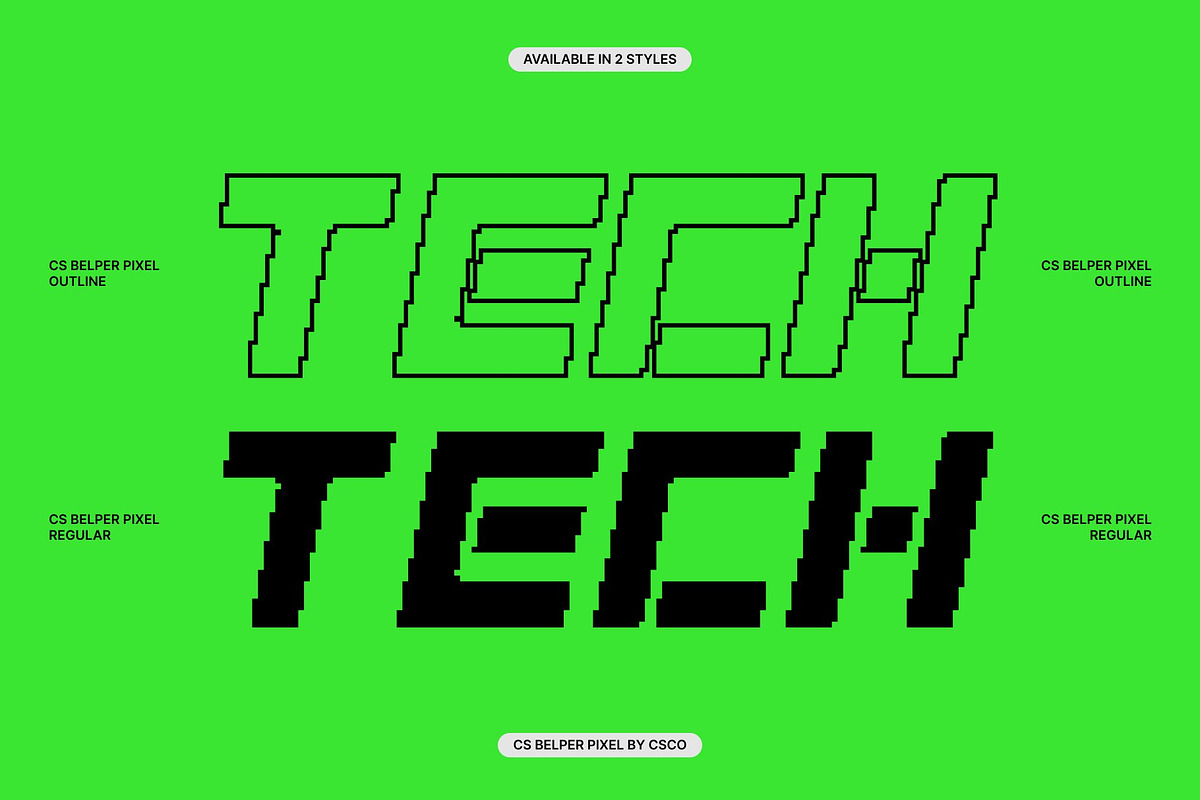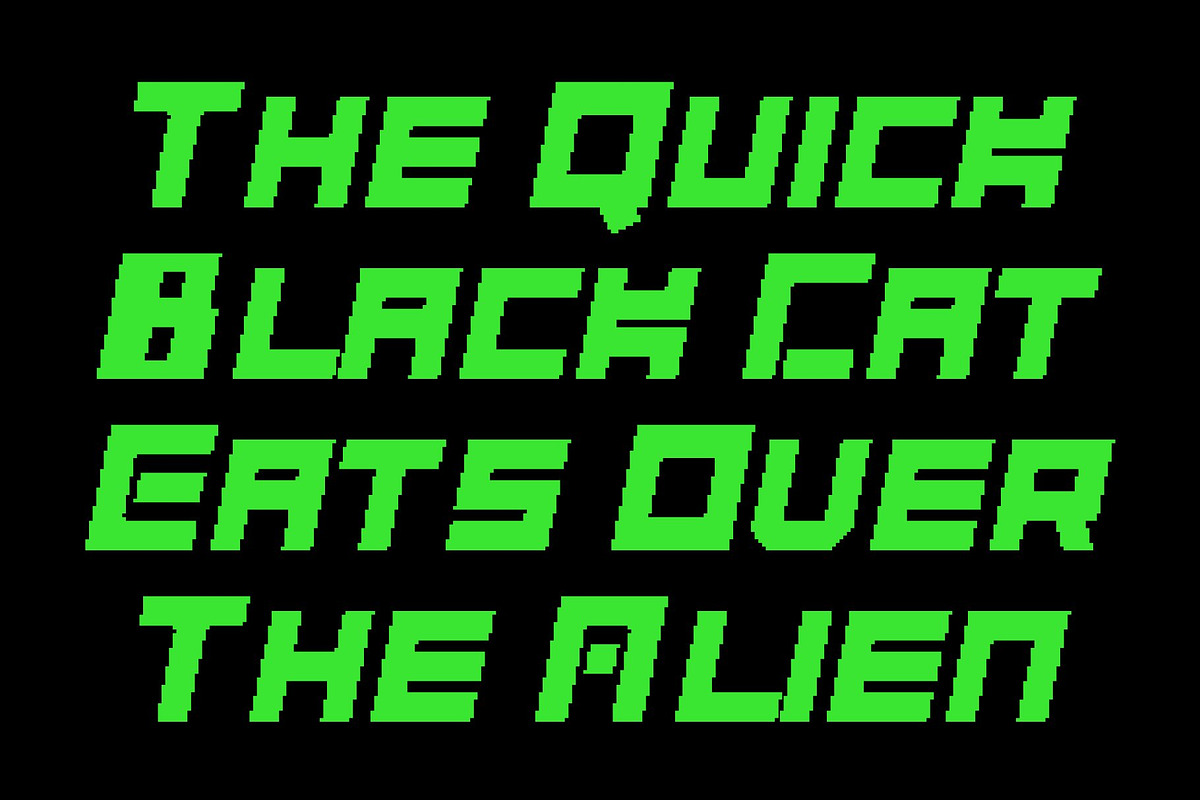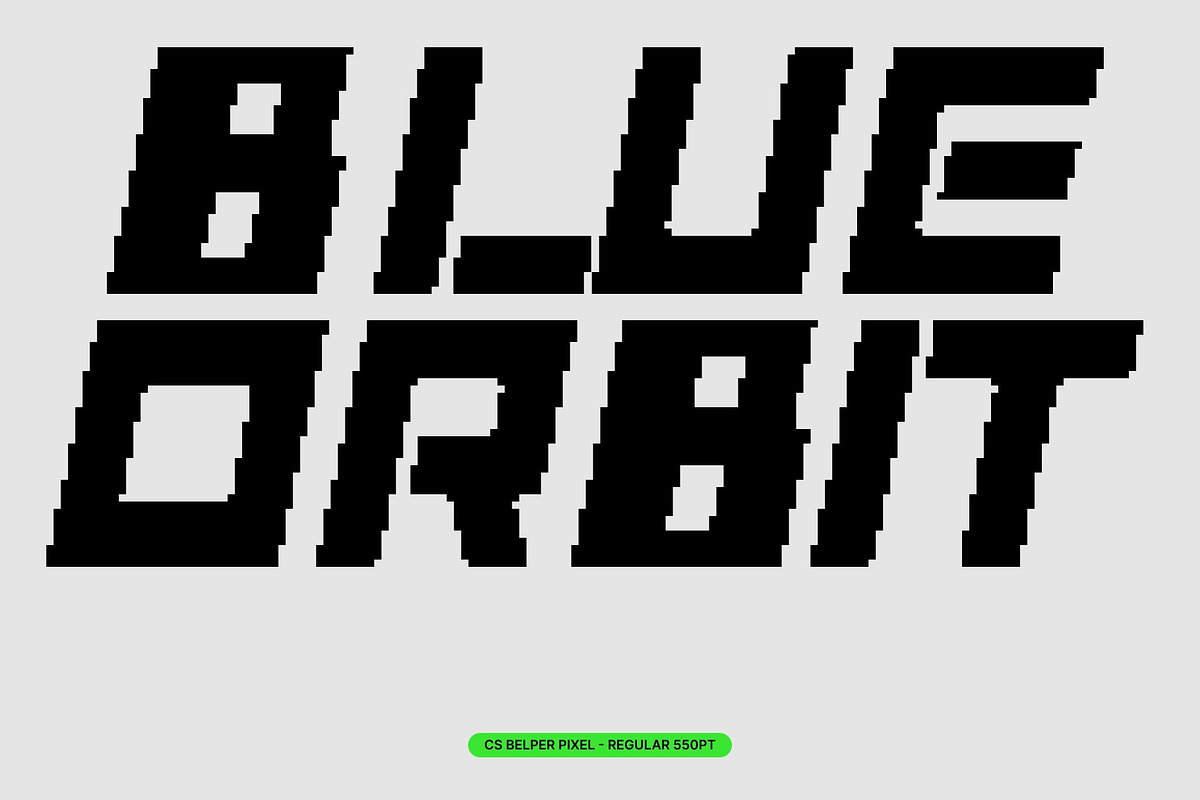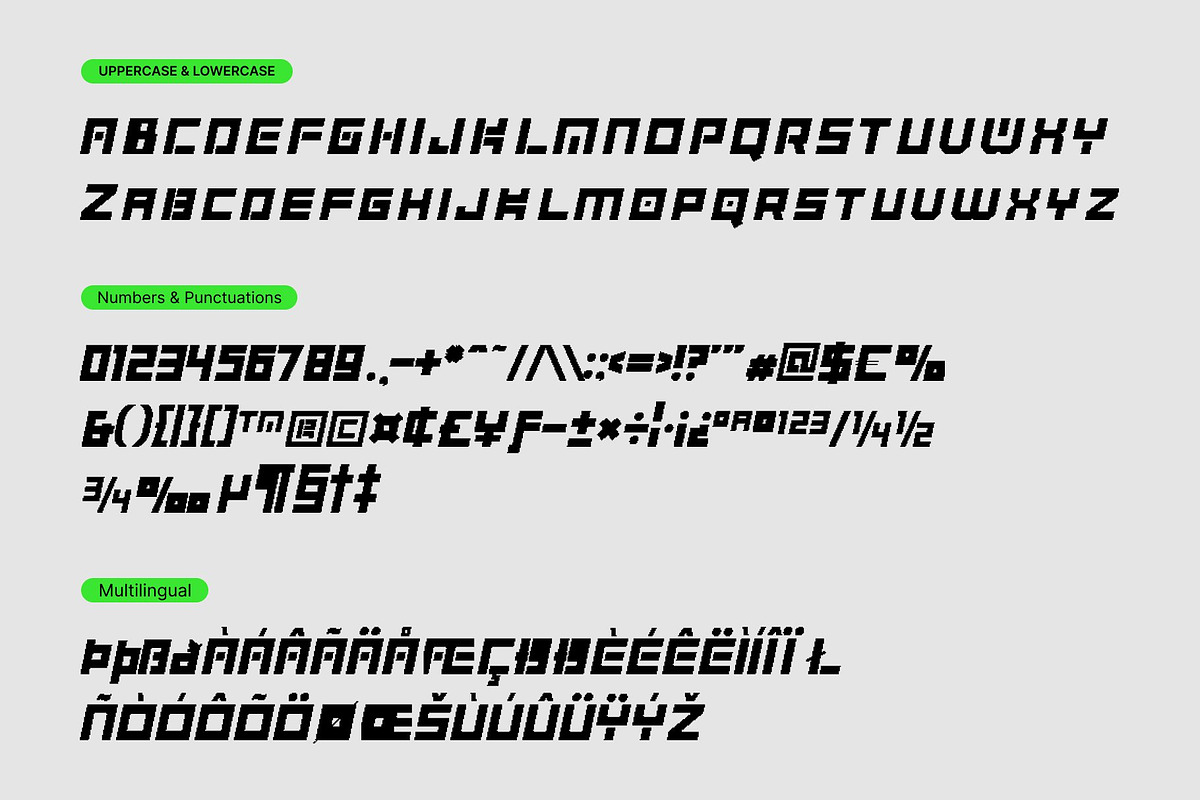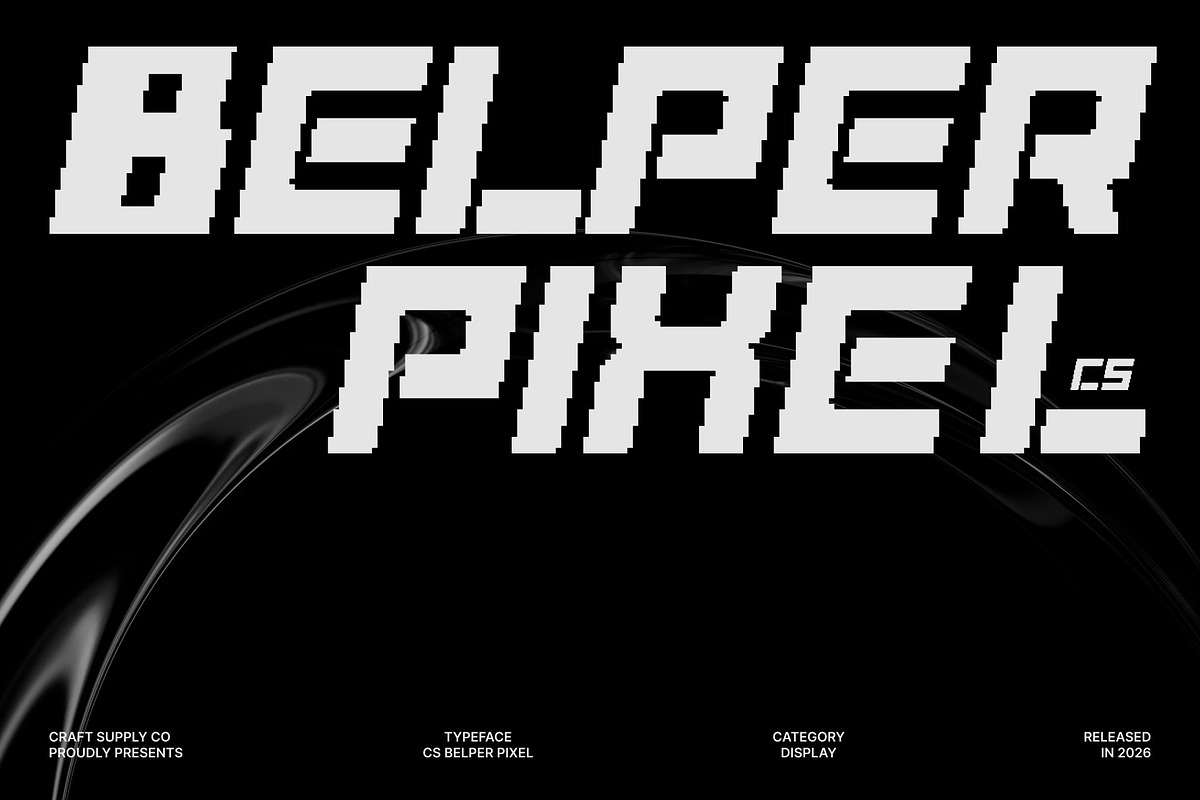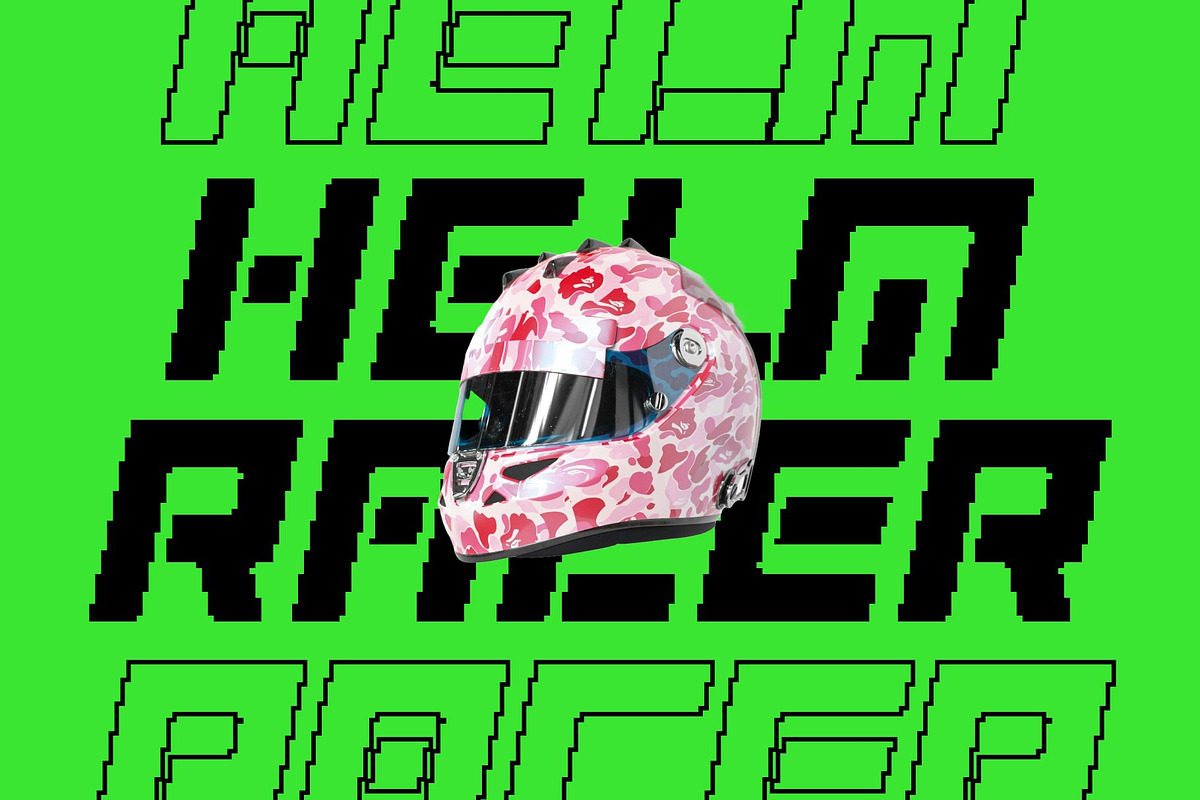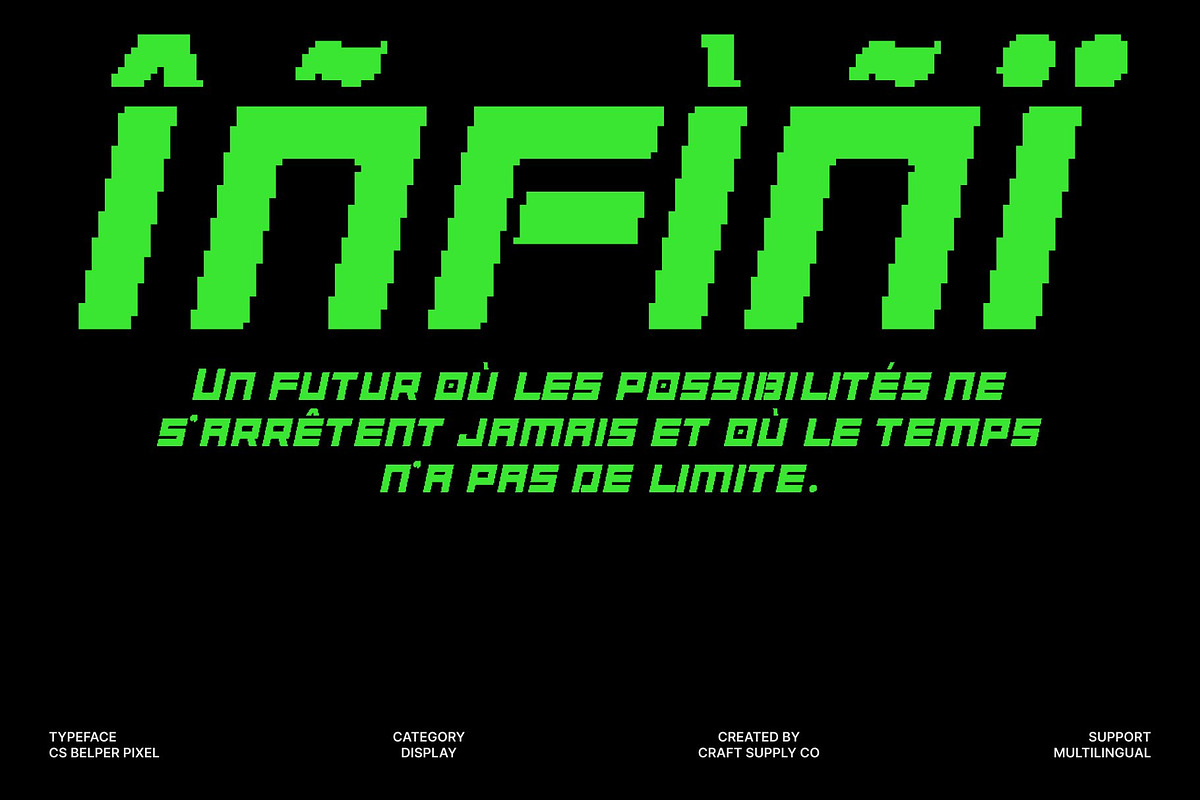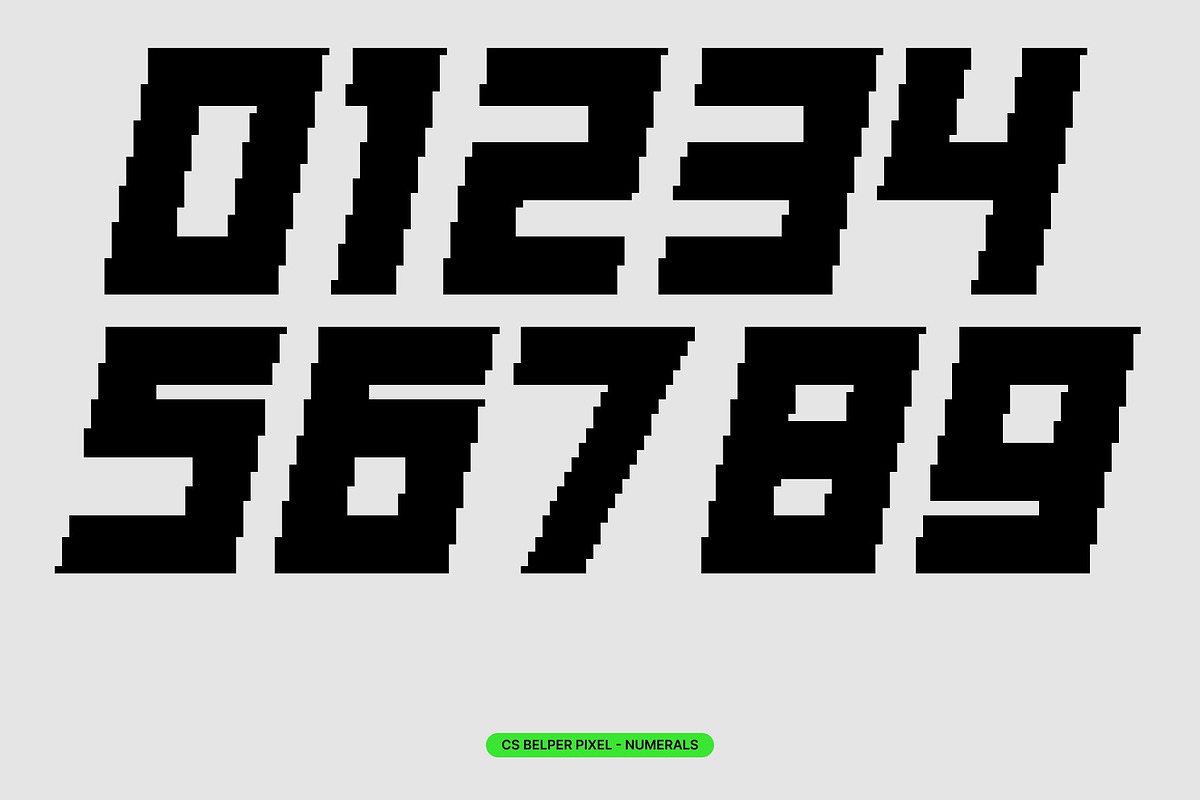
CS Belper Pixel
CS Belper Pixel – Futuristic Power with Modern Digital Energy
Futuristic Pixel Display with Techno Influence This is a bold futuristic display font reimagined through a distinctive pixel-based construction. Inspired by techno aesthetics and digital culture, this font combines sharp geometry with an unmistakable 8-bit visual language. The pixel style adds a retro-digital edge, giving the font a strong connection to old-school screens, arcade visuals, and futuristic game interfaces.
Bold Pixel Forms with Industrial Brutalist Character Built from rigid pixel blocks and solid strokes, this font carries a powerful industrial and brutalist presence. Its strong, uncompromising shapes feel mechanical and structural, reinforcing a sense of raw strength and authority. The pixel grid enhances its boldness, creating a font that feels tough, urban, and visually commanding.
Experimental Digital Design for Modern Expression This font embraces experimentation through unconventional pixel proportions and assertive forms. The fusion of futuristic concepts with retro digital styling results in a unique typographic voice that feels innovative yet nostalgic. It’s designed for creatives who want to challenge visual norms while celebrating the aesthetics of early digital technology.
Perfect for Tech Branding, Games, and Retro-Futuristic Visuals This font is ideal for logos, posters, branding, game graphics, and digital visuals that demand a bold futuristic identity. Its techno-industrial pixel style makes it perfect for technology brands, music events, cyber-themed projects, and retro-futuristic designs that seek power, energy, and standout character.